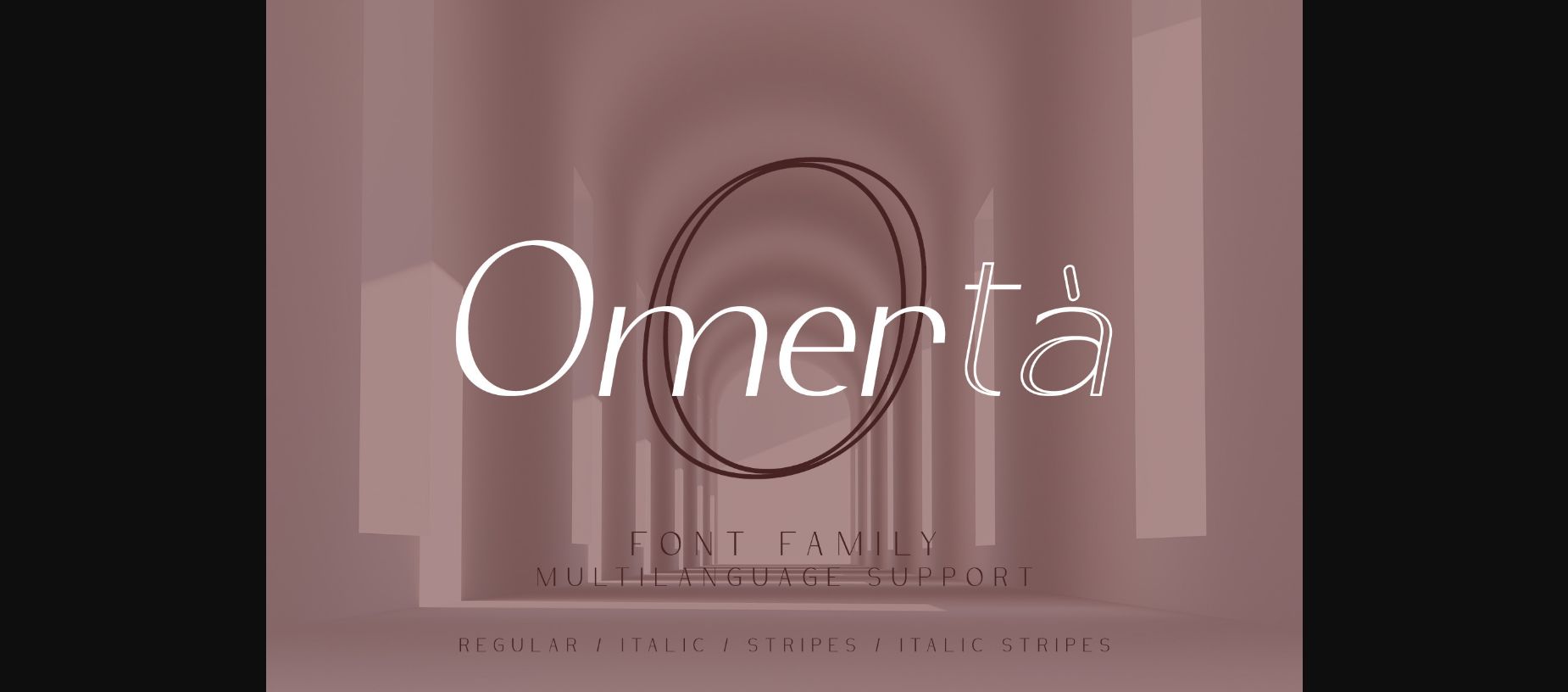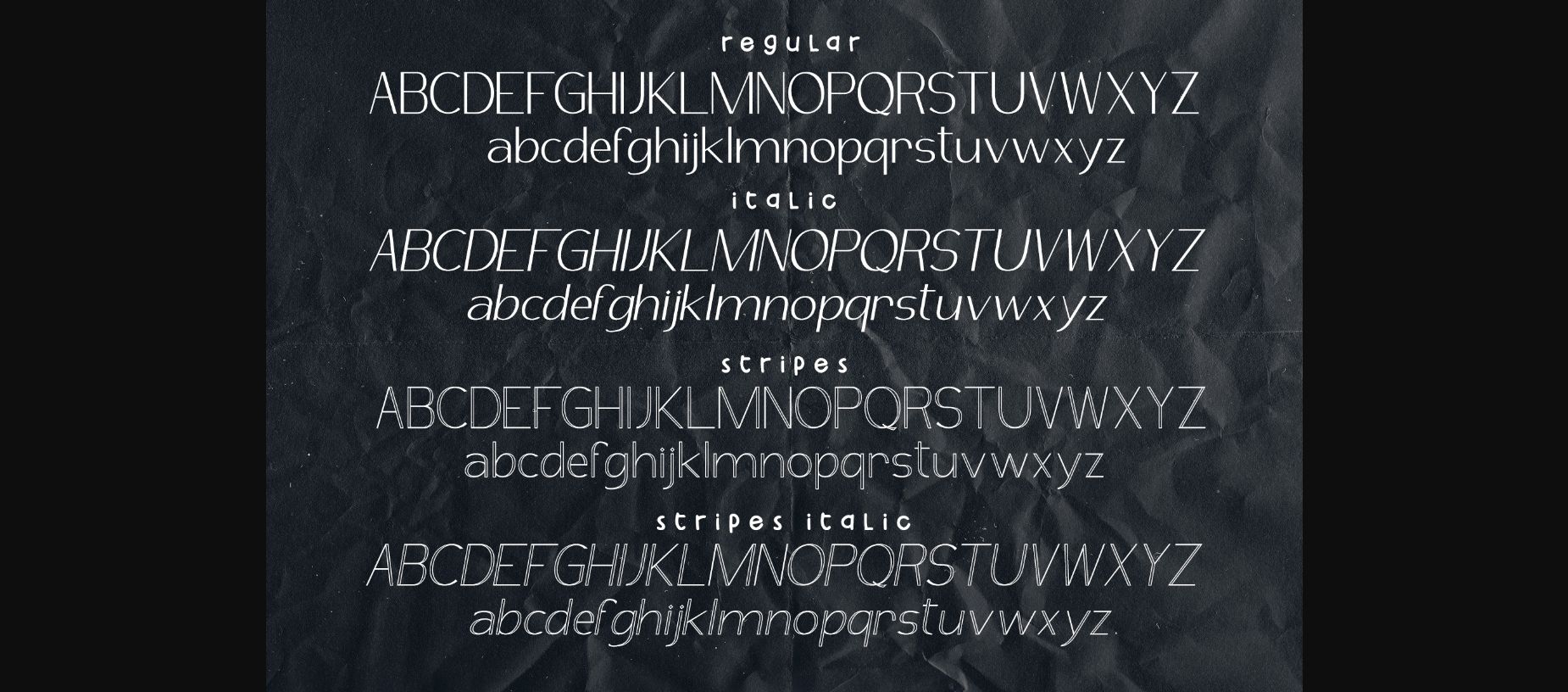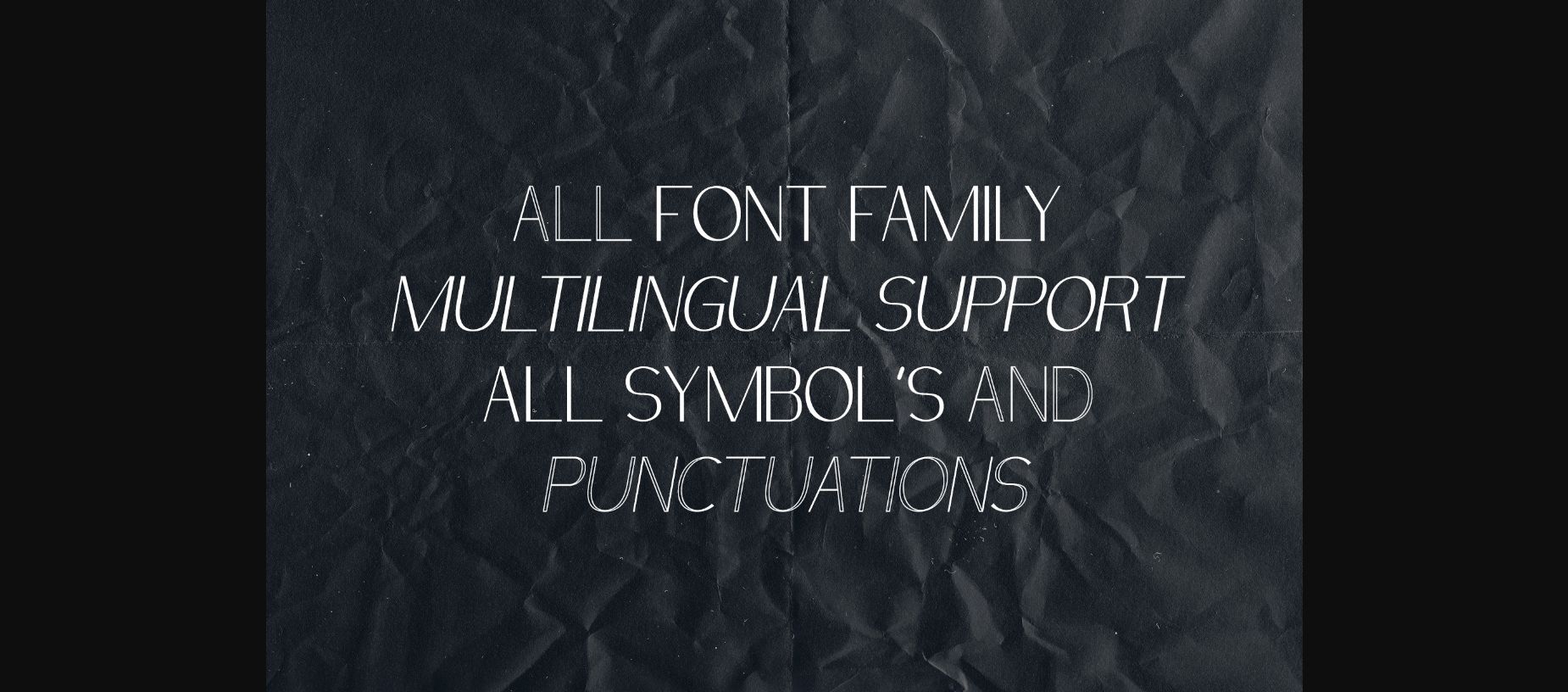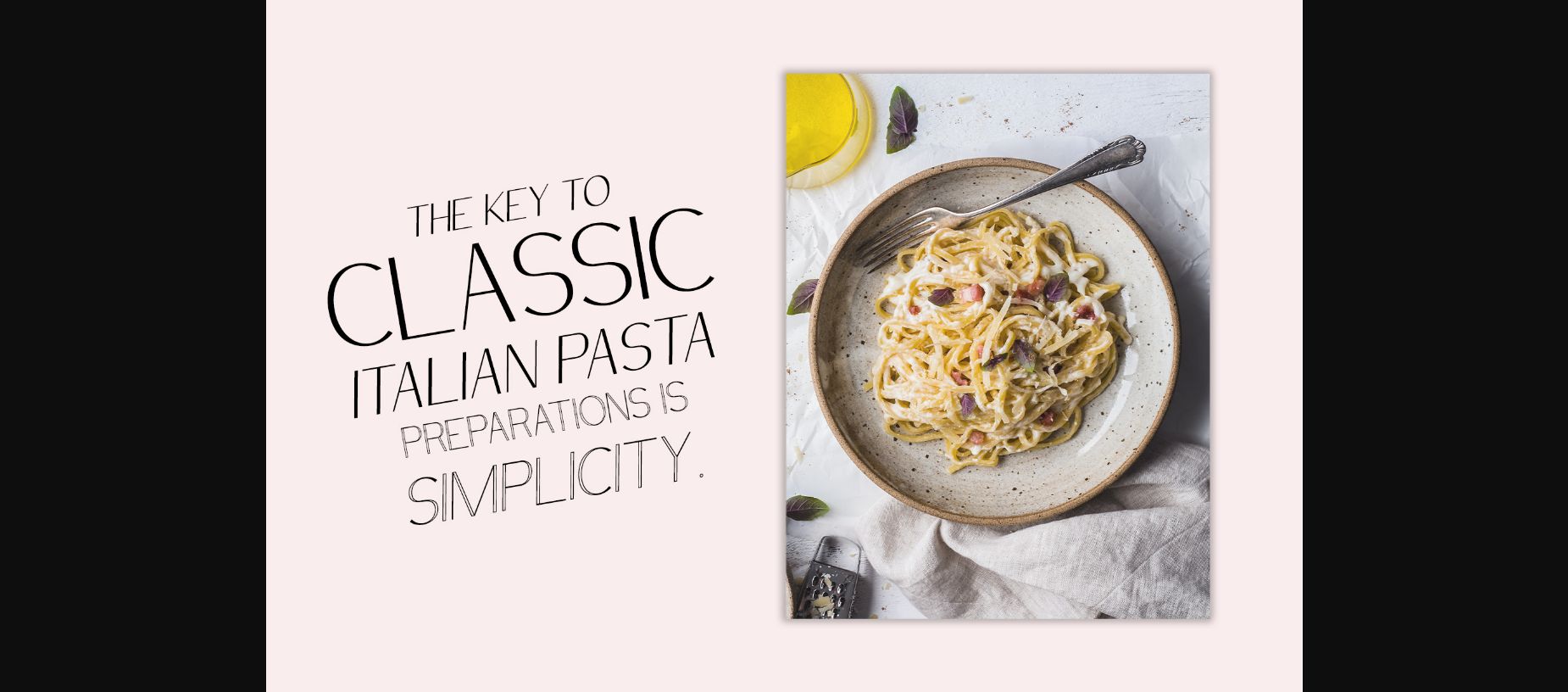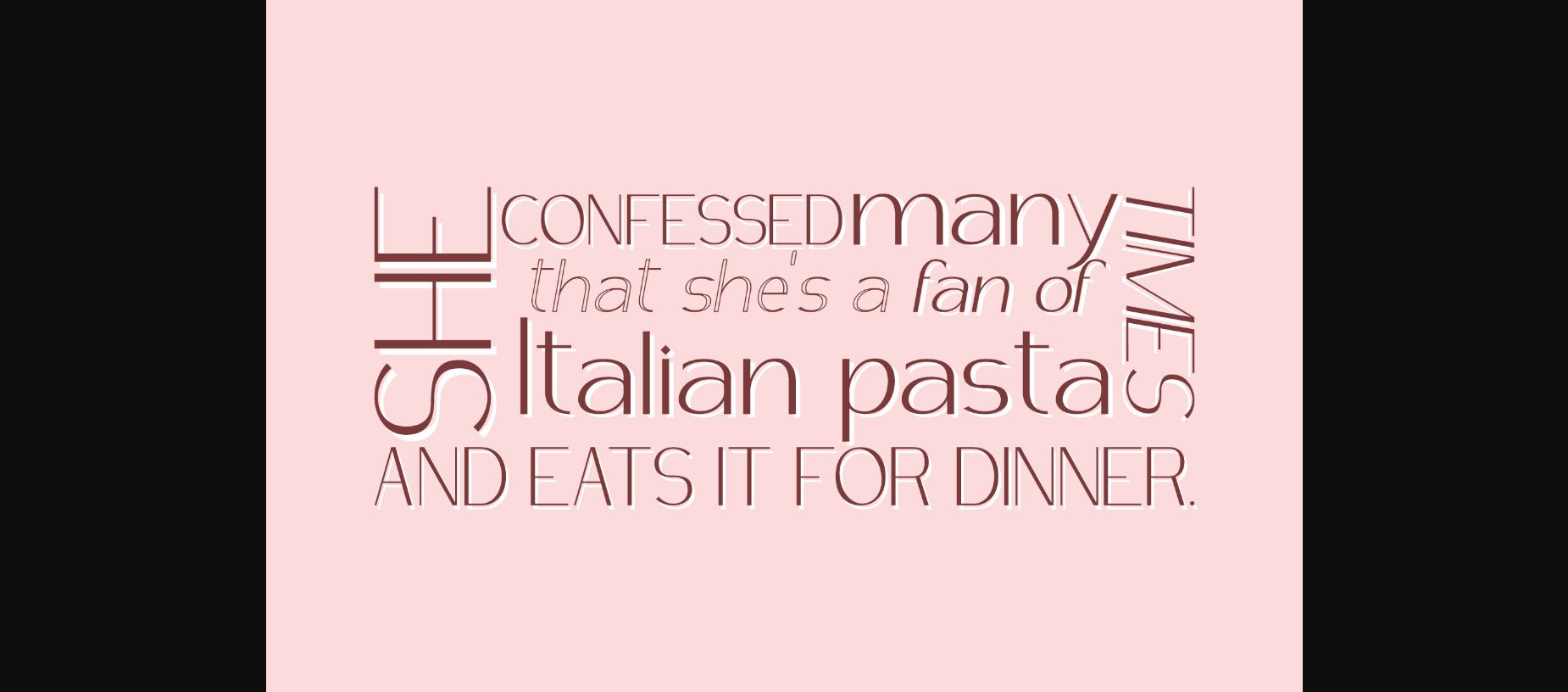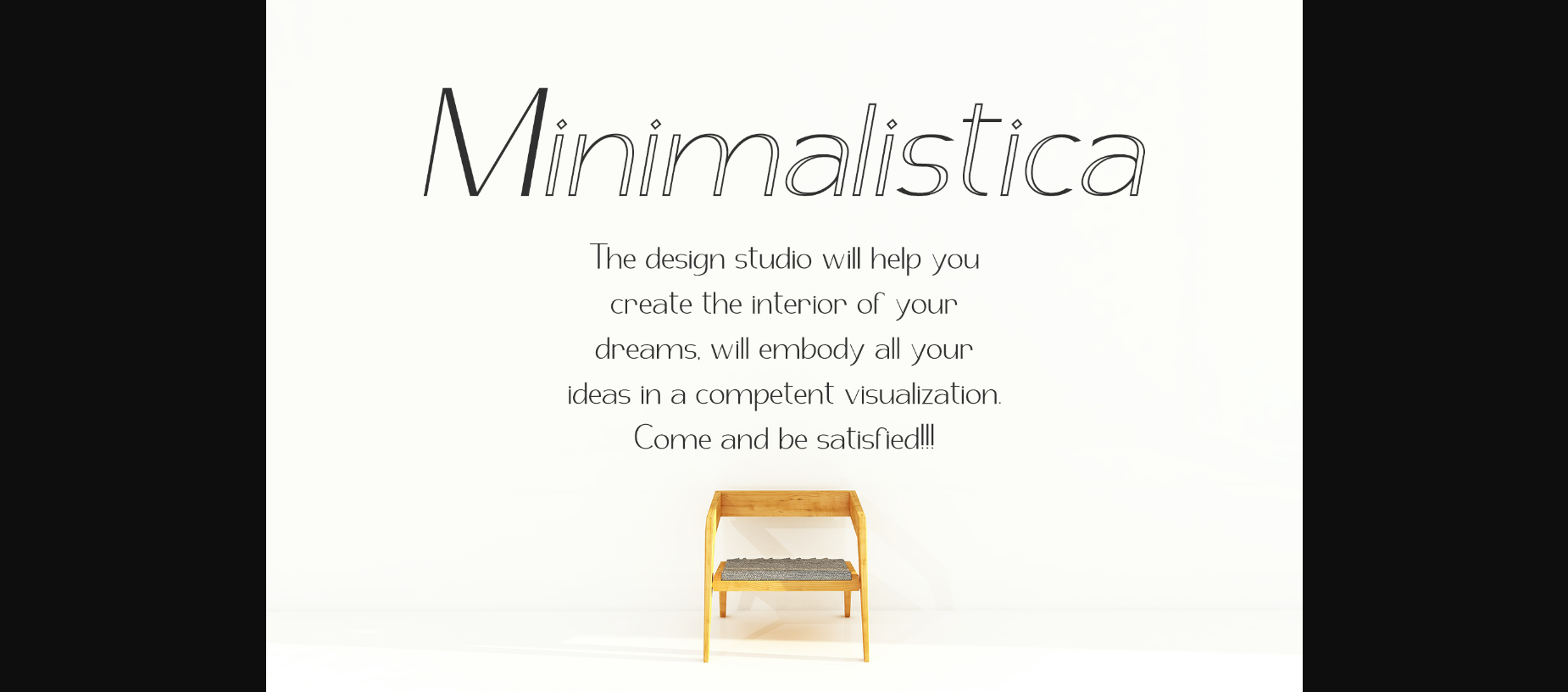
About Omerta Font
Omerta Font Family – is a classic style sans serif typeface making it one of the most memorable caps fonts on the market.
This versatile font can be used for logos, mastheads, pull quotes & monograms showing both feminine and masculine qualities. Very suitable for greeting cards, branding materials, business cards, quotes, posters, and more! This font is perfect for wedding postcards. Or you can create perfect and unique designs for your logo, blog, stationery, marketing, magazines, and more.